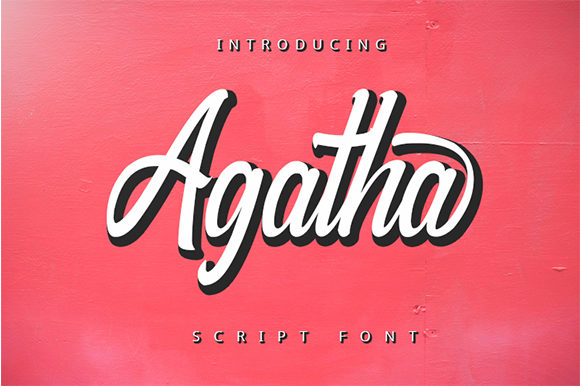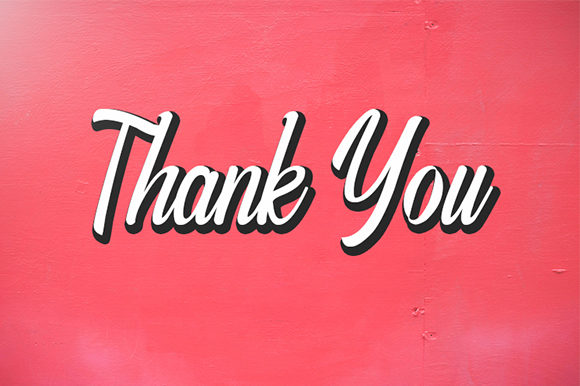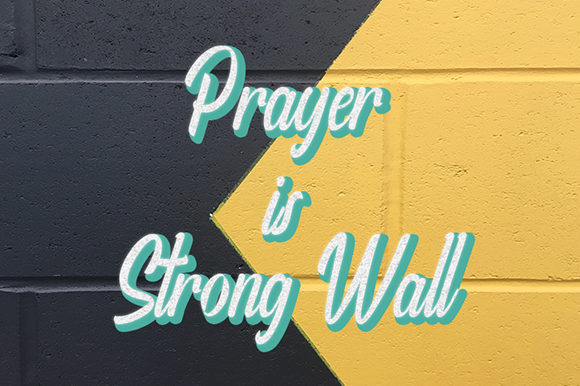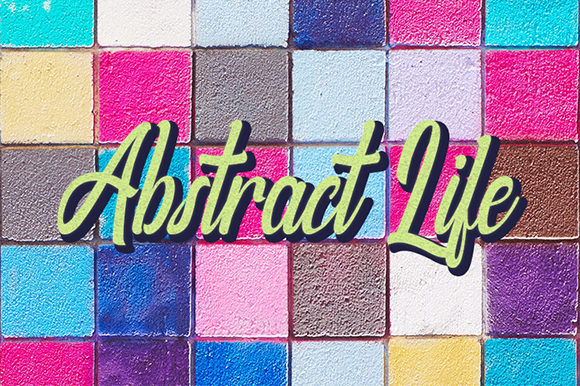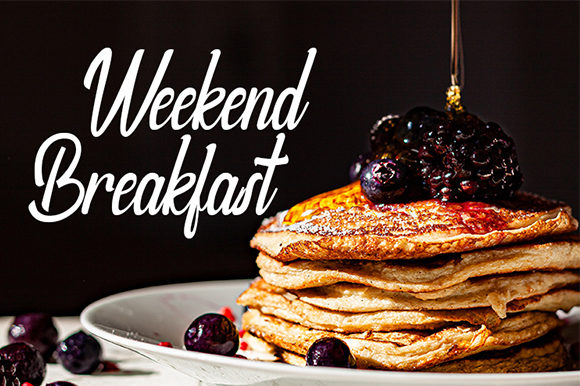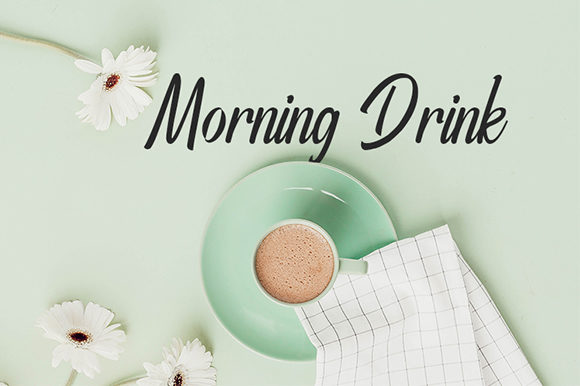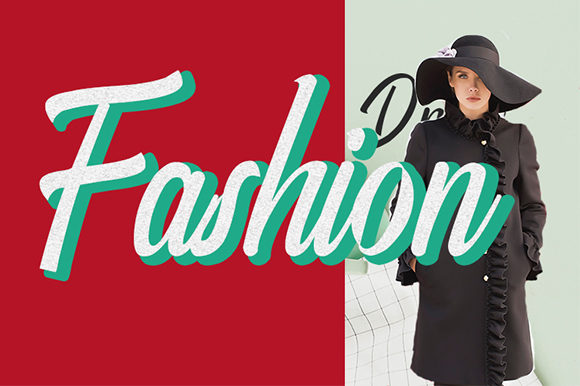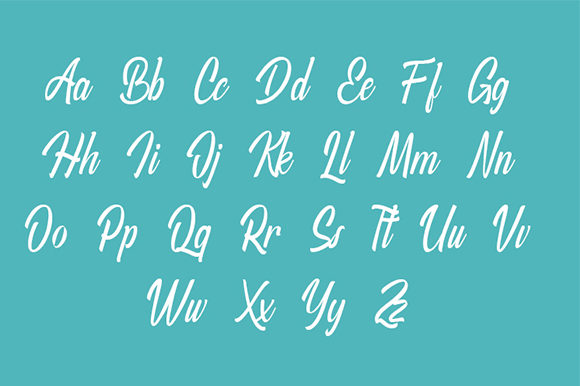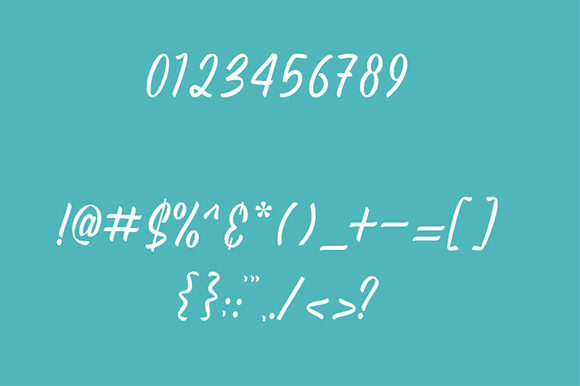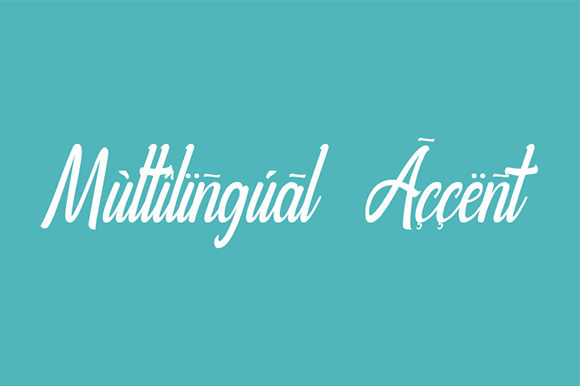
HomeScript FontsAgatha Font Script Fonts Agatha Font FacebookXPinterestWhatsApp Agatha Font Poster 2 Agatha Font Poster 3 Agatha Font Poster 4 Agatha Font Poster 5 Agatha Font Poster 6 Agatha Font Poster 7 Agatha Font Poster 8 Agatha Font Poster 9 Agatha Font Poster 10 About Agatha Font Agatha is a fun and contemporary script with a bold feel. Use it to turn any design idea into a true standout! DOWNLOAD ON CREATIVE FABRICAThis font is sold and delivered by Creative Fabrica. Font Canyon may earn a commission if you buy through this link. People also explored Formentera Coastal Walk View | Beer Mockup Quirky Humor Font Monogram Framer Font Aeroting Font Datamatrix Font Gholing Font Good Morning Font Sweet Holiday Font Madelista 278 0 TagsAgatha Font Previous articleSmile and Love FontNext articleAlle Font LEAVE A REPLY Cancel reply Comment: Please enter your comment! Name:* Please enter your name here Email:* You have entered an incorrect email address! Please enter your email address here Website: Save my name, email, and website in this browser for the next time I comment. Personal Use Free Ayam Bakar Personal Use Free Read more about this font Hearted Personal Use Free Read more about this font Laneway Personal Use Free Read more about this font Adeline Personal Use Free Read more about this font BLOG Free vs Paid Fonts: Why Investing in Premium Fonts Is Worth It Free vs Paid Fonts: Why Premium Fonts Are Worth It in 2025 The debate of free vs paid fonts continues in the design world. While... The 10 Best Handwriting Fonts to Add Personality to Your Designs Top 10 Handwritten Fonts That Elevate Your Designs 5 Fonts That Will Dominate Design Trends in 2026